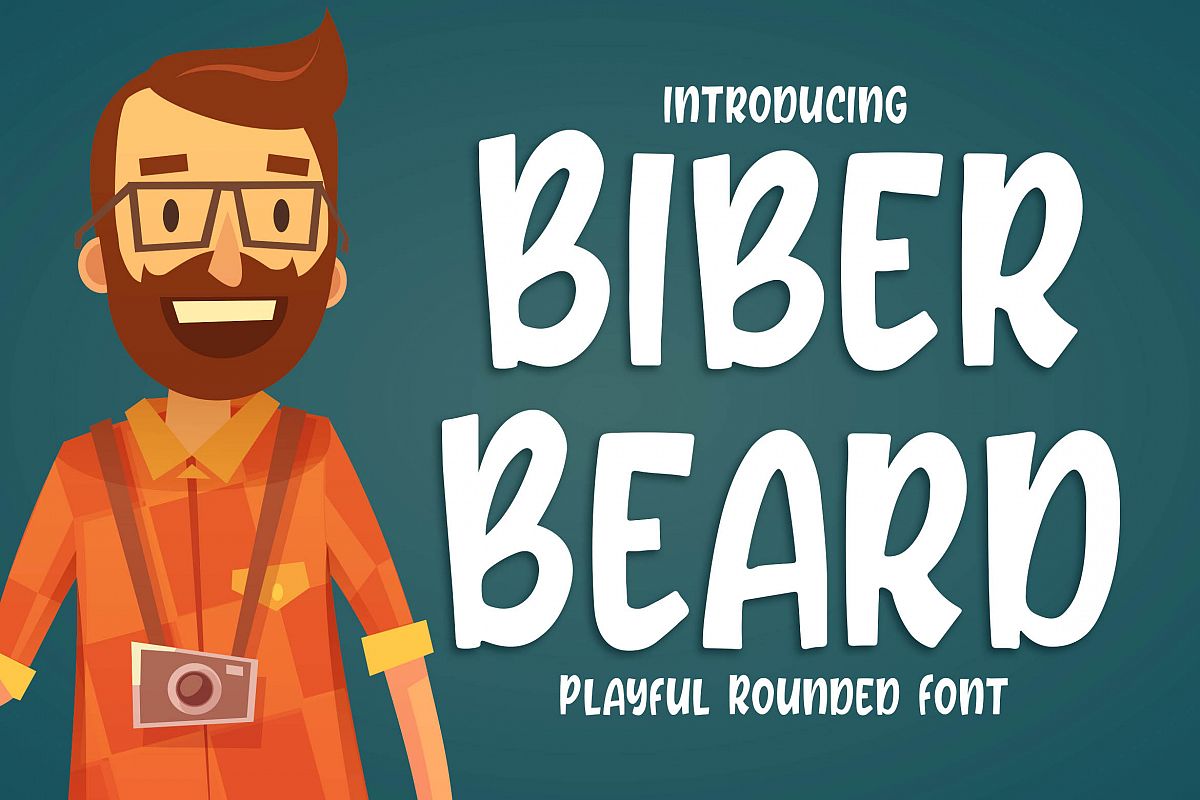
Introducing of our new product the name is Biber Beard Playful Rounded Font. Biber Beard inspired from comic style very good for kids poster, flyer childrenbook, cartoon, comic etc